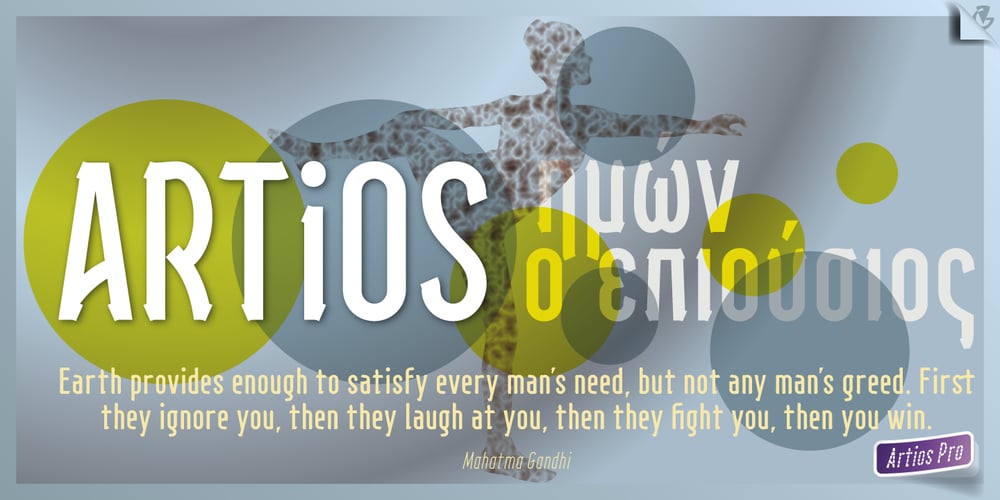
Artios Pro
Artios Pro font
Artios Pro Font Family was designed by Vangelis Dim. Gardikiotis and published by DBSV. Artios Pro contains 12 styles and family package options. There are a lot of narrow passages… like the Straits of Gibraltar, Hormuz, of Malacca, of Thermopylae, the Dardanelles, the Dervenakion, Magellan, Rentina of Naruto, Kerch etc. I tried to pass into mine closely with the name «Artios Pro”. Walking on the same considerations as the previous series (Khamai/Aeolus/Corset) I tried to give some sense of diversity for narrow passages of the letters. These twelve style are the result. And here, the “Rail” engage with “Semi Bold” in the same way as the previous series. This series is composed and includes 12 fonts with 625 glyphs each, with true italics and supports Latin, Greek and Cyrillic.